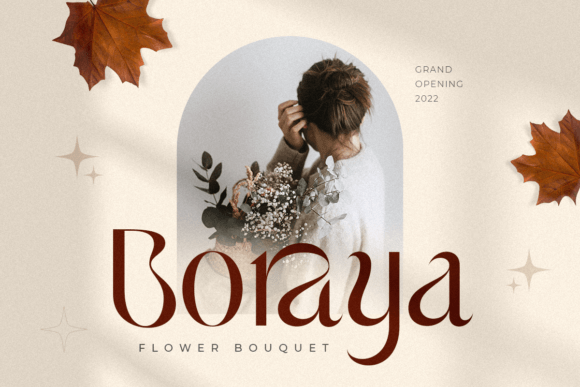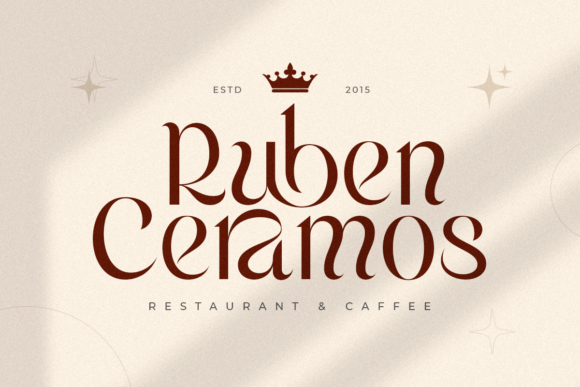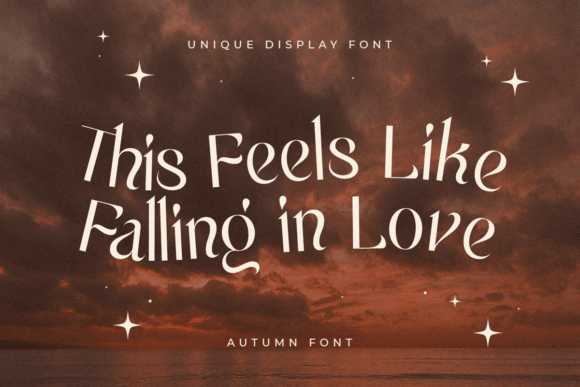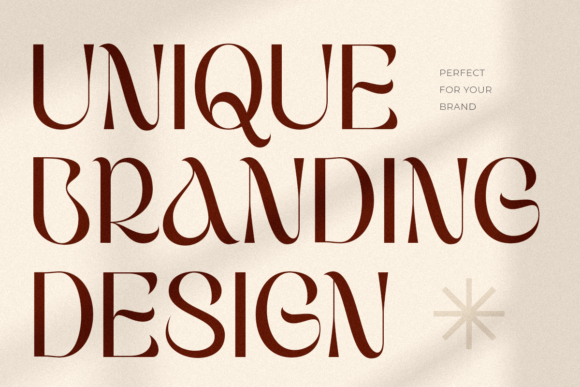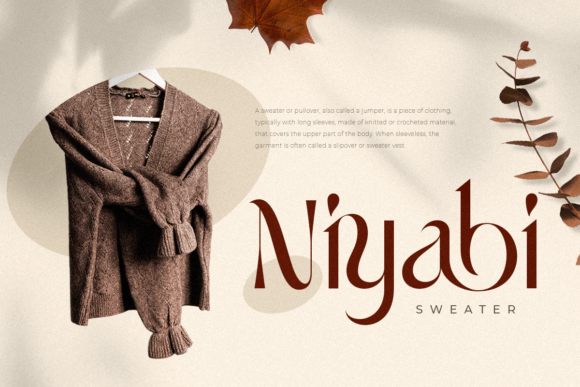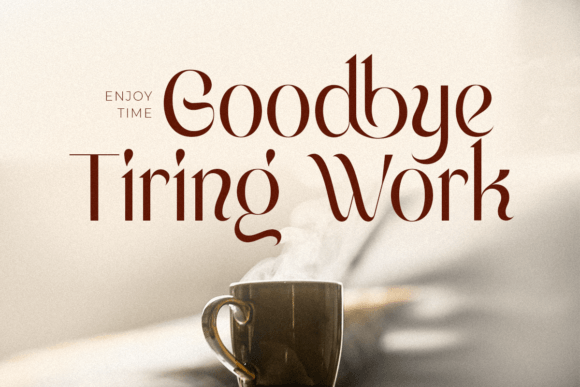
The Magic of Autumn Font: Elevate Your Designs with Elegance
I’ll never forget the time I was working on a wedding invitation project, and my client asked for a font that exuded elegance and sophistication. I scoured the internet, tried countless fonts, but nothing seemed quite right. That was until I stumbled upon Autumn Font. ✨ It was love at first sight! The Arabic flare, the bold serif lines, and the versatility of this font won me over. In this article, I’ll share my experience with Autumn Font, its features, and how to make the most of it in your designs.
An Honest Review of Autumn Font
- ✅ Elegant and bold serif lines with a unique Arabic flare
- ✨ Incredibly versatile, perfect for various design projects
- 🎨 Supports OpenType features, glyphs, and stylistic alternates
- 💕 Perfect for creating stunning wedding invitations, stationery art, and social media posts
While Autumn Font is an amazing addition to any design project, there are a few things to keep in mind: 🤔
- ⚠️ Some characters may require manual kerning for optimal spacing
- ⚠️ Limited language support, primarily designed for English and Arabic scripts
The Story Behind Autumn Font
Autumn Font was designed by a talented team of typographers who aimed to create a unique and elegant font with an Arabic twist. Inspired by the beauty of Arabic calligraphy, they crafted a font that blends traditional and modern elements. The result is a stunning serif font that adds a touch of sophistication to any design project.
Q: What is the primary language supported by Autumn Font?
A: Autumn Font primarily supports English and Arabic scripts.
Q: Does Autumn Font support OpenType features?
A: Yes, Autumn Font supports OpenType features, including ligatures, stylistic alternates, and glyphs.